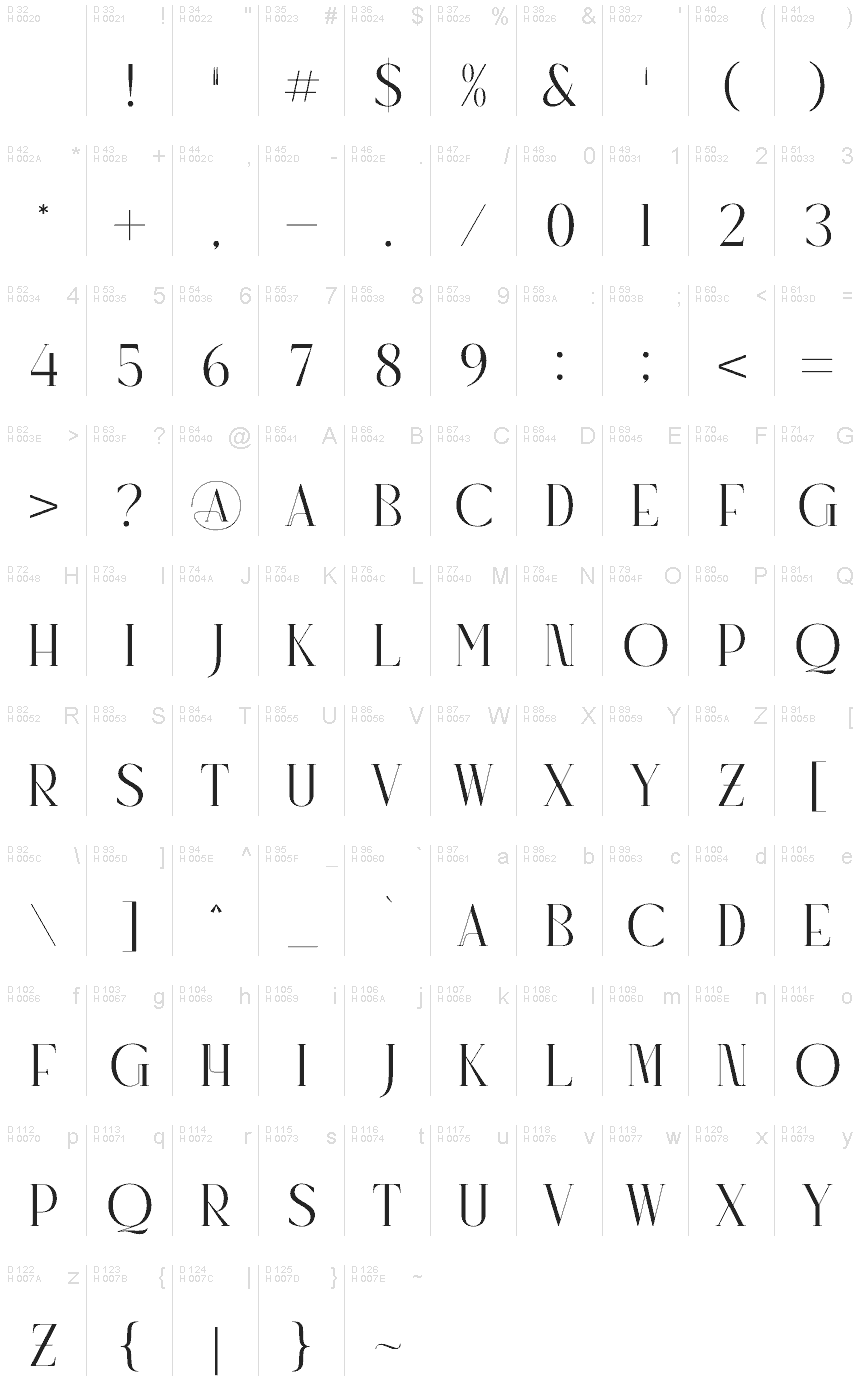
Ragyola
Ragyola font by Storytype Studio is an elegant, sophisticated serif that exhibits elongated forms for a modern feel. It has a refined overall appearance and delivers a professional aesthetic without feeling too serious or out of touch from its user or audience base.